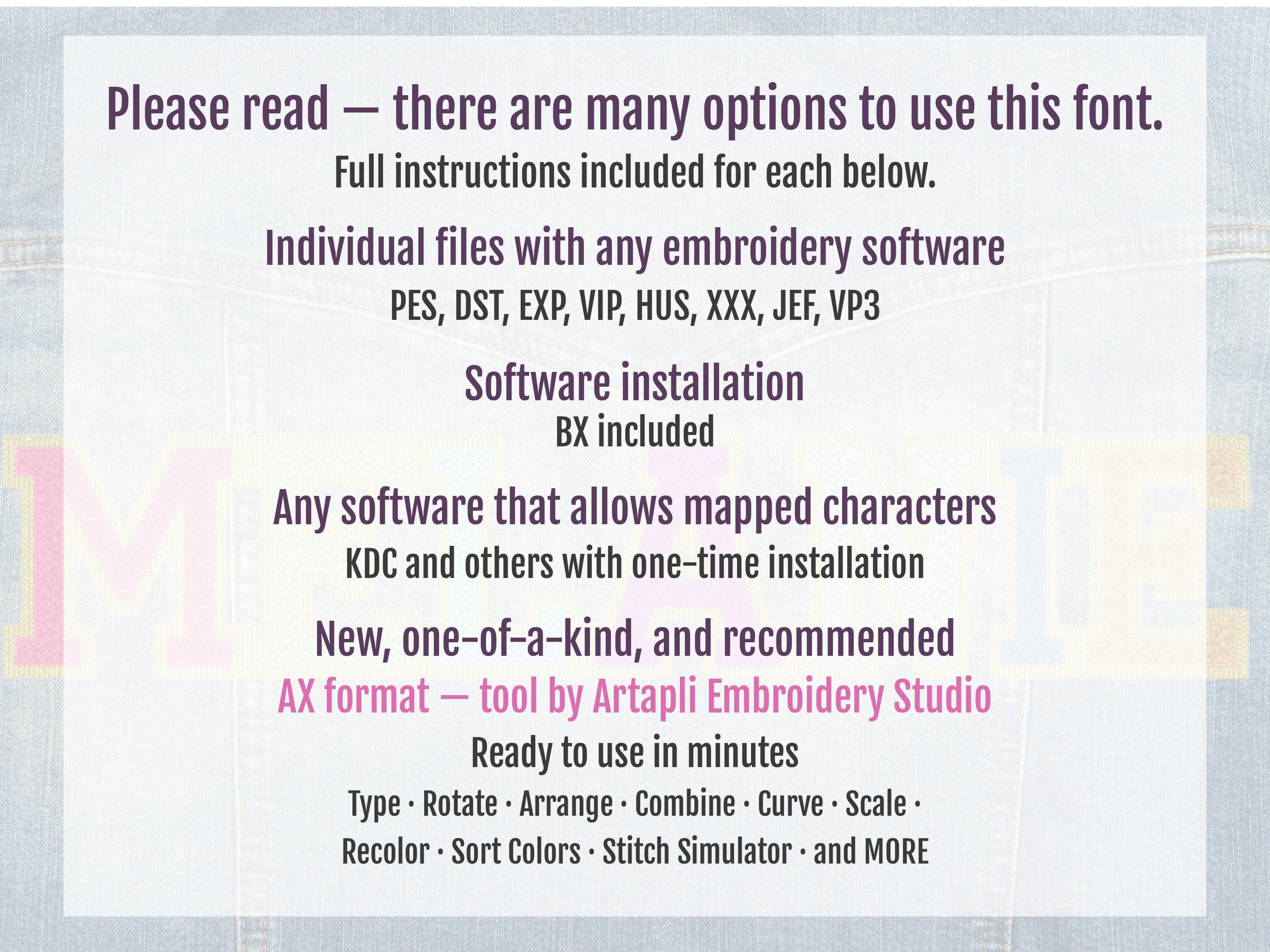
Faux chenille Glitter HTV Font Athletic Sport Varsity glitter vinyl alphabet letters machine embroidery designs sizes 2.5 thru 4.5 inches BX included
If you are using mylar it may be torn, if a glitter vinyl it may be torn or trimmed along the edges.